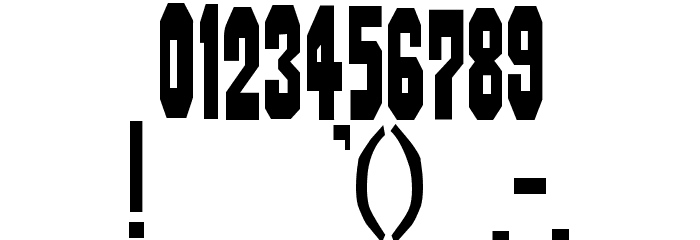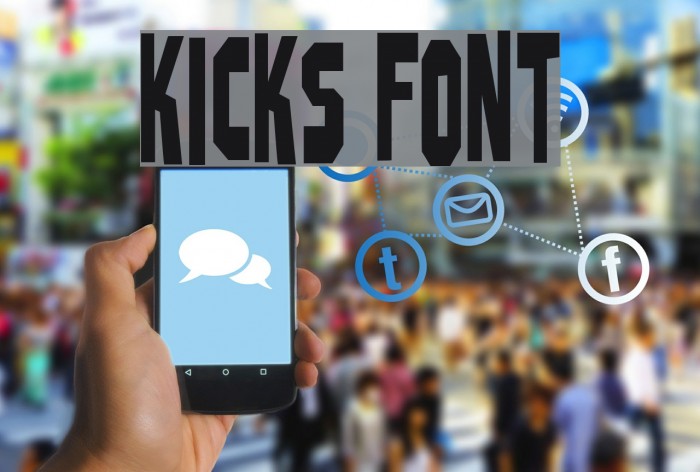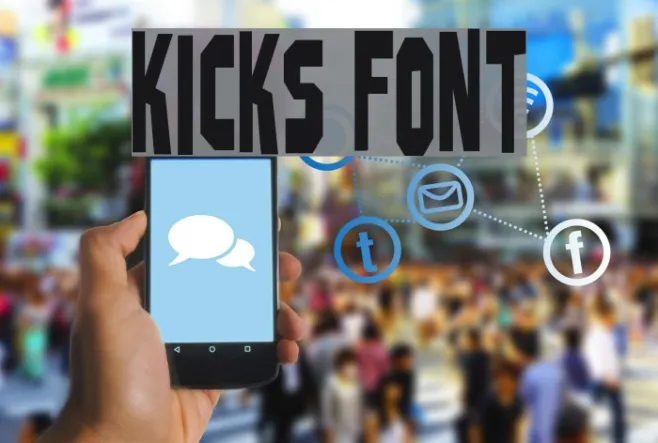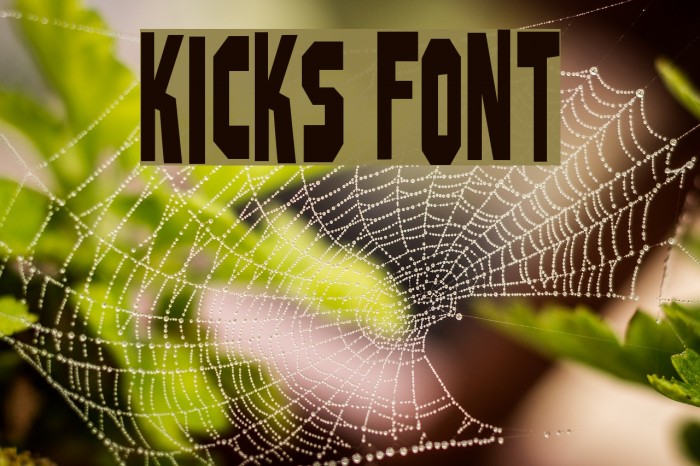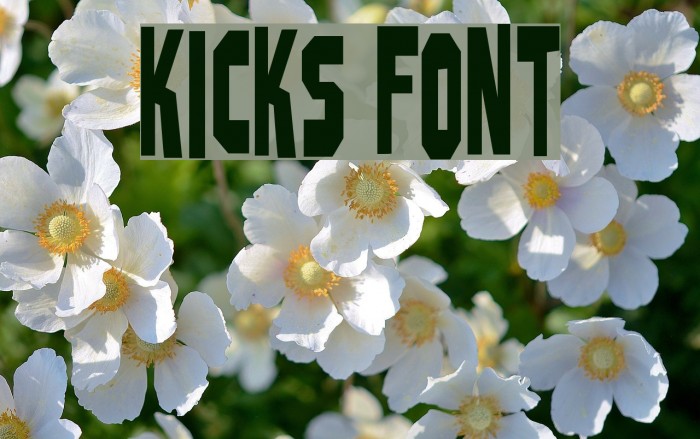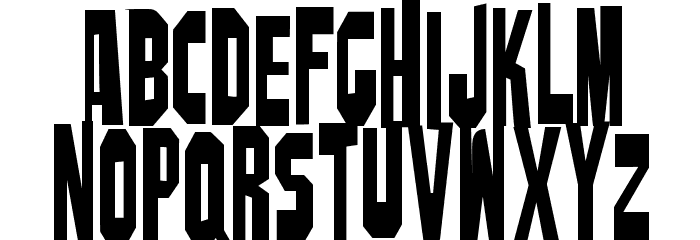
KICKS Font
KICKS Description
This font features a bold and striking design with a strong geometric influence. The characters are constructed with sharp angles and a blocky appearance, giving it a powerful and commanding presence. The uppercase letters are particularly prominent, with a uniform height and width that create a cohesive look. The numbers and special characters follow the same bold style, ensuring consistency across all elements. This font is ideal for making a statement and grabbing attention, with its high-impact design and distinctive character shapes.